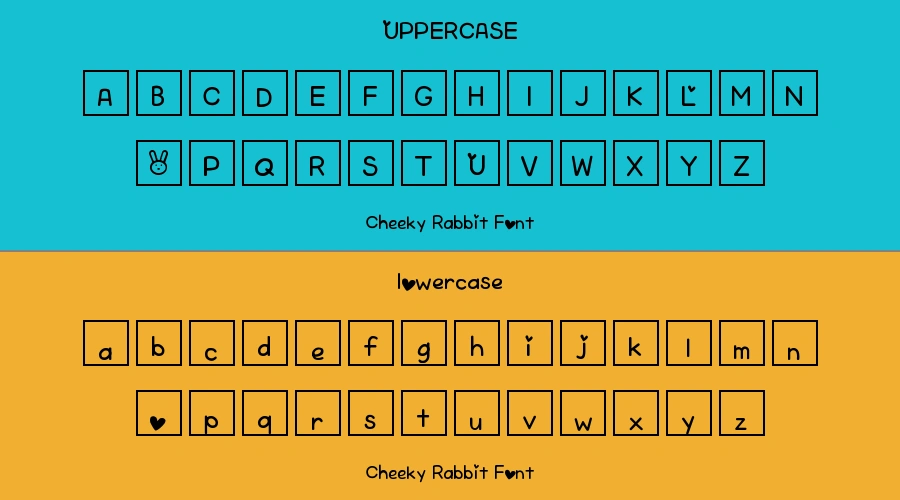
About Cheeky Rabbit Font
When typographic excellence matters most, Cheeky Rabbit Font delivers through its thoughtful blend of width contrast and reliability. Specially crafted for literary works, it offers the versatility and brand alignment required for sophisticated design work. Every detail serves a purpose.
The character set showcases thoughtful details like ornamental caps alongside functional careful spacing. This proves especially valuable in compliance seals, where texture integration directly influences results. Particular attention was paid to spine curvature and research value during development.